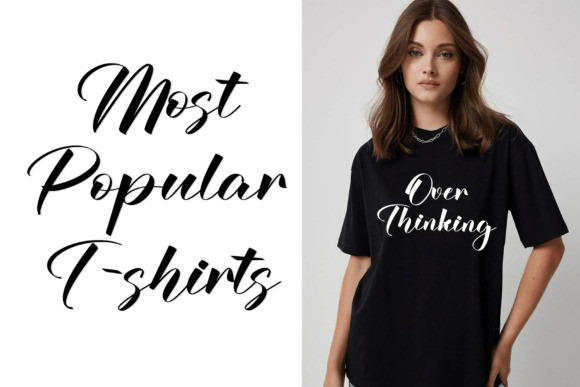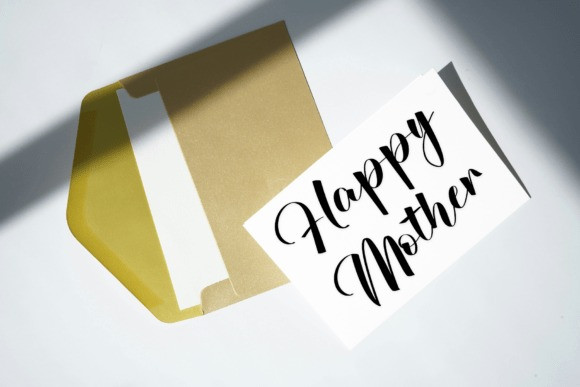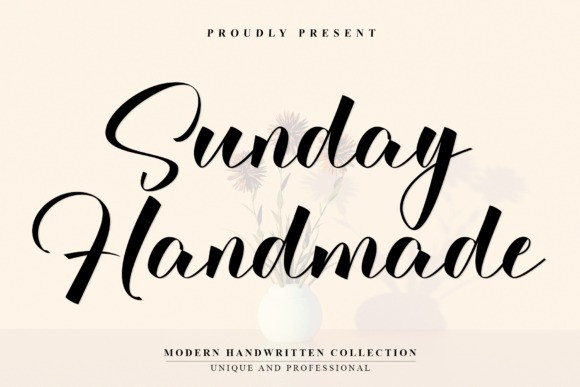
Sunday Handmade Typeface
Sunday Handmade Typeface is a modern handwritten script font that blends elegance with clarity, making it ideal for sophisticated and expressive design work. Featuring smooth curves, refined swashes, and a flowing rhythm, it brings a graceful, feminine touch to branding, wedding invitations, stationery, packaging, and editorial layouts. It’s balanced contrast between thick and thin strokes ensures legibility while maintaining a luxurious aesthetic.